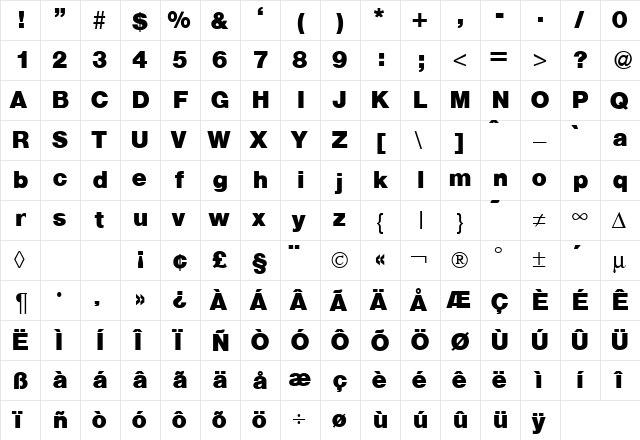
Hegel Bold
Design Context for Hegel Typeface
Hegel takes a measured approach to typography — its balanced proportions and neutral character make it a reliable workhorse for both digital and print work. The heavy weight commands attention and anchors typographic hierarchies.